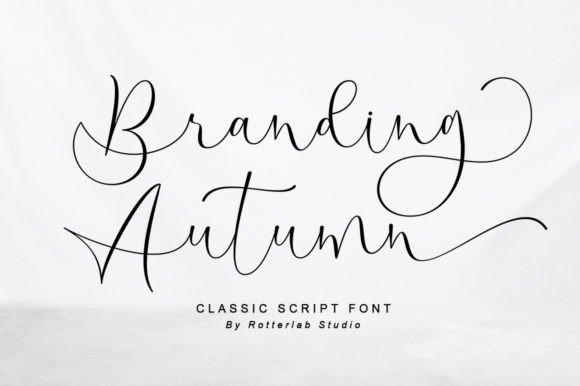
Introducing Branding Autumn, the enchanting script font that's ready to transform your designs into masterpieces. This captivating typeface boasts an alluring blend of grace and sophistication, making it the perfect choice for creating logos that exude elegance, invitations that whisper romance, and master heads that command attention.
Branding Autumn isn't just a font; it's an invitation to unleash your creativity and add a touch of magic to your projects. Its meticulously crafted characters dance across the page, evoking emotions and leaving a lasting impression. With Branding Autumn, your designs will bloom with an air of exclusivity and refinement, making it the ideal companion for high-end branding, unforgettable logos, and enchanting invitations.
But wait, there's more! Branding Autumn comes fully PUA encoded, giving you effortless access to a world of glyphs and swashes. Unleash your imagination and let your designs take flight, knowing that every flourish and curve is at your fingertips. Whether you're a seasoned designer or just starting your creative journey, Branding Autumn is the perfect font to add a touch of sophistication and charm to your projects.
So why settle for ordinary fonts when you can embrace the extraordinary? Step into the world of Branding Autumn today and elevate your designs to new heights. Let the elegant strokes of this captivating script ignite your creativity and leave your audience spellbound.